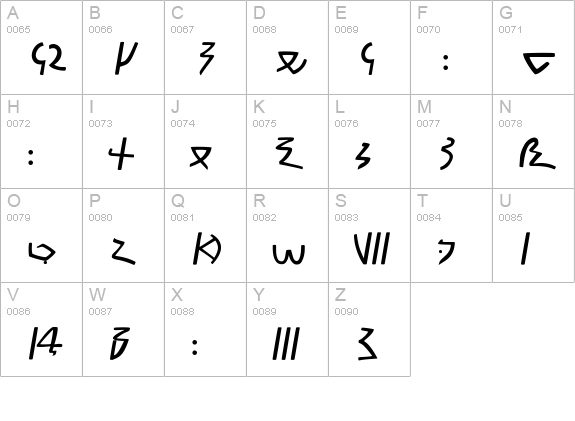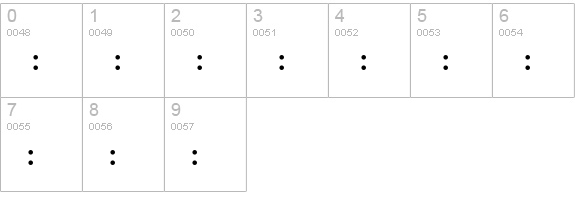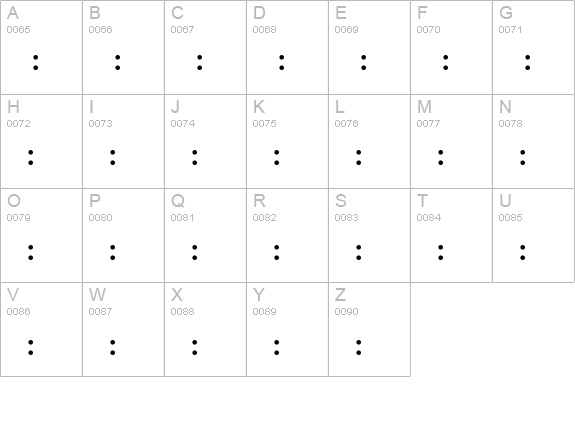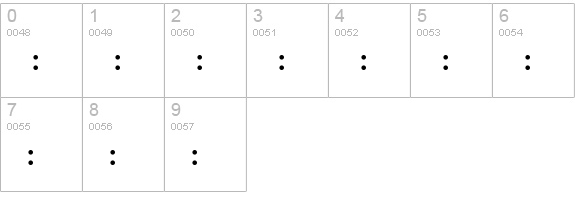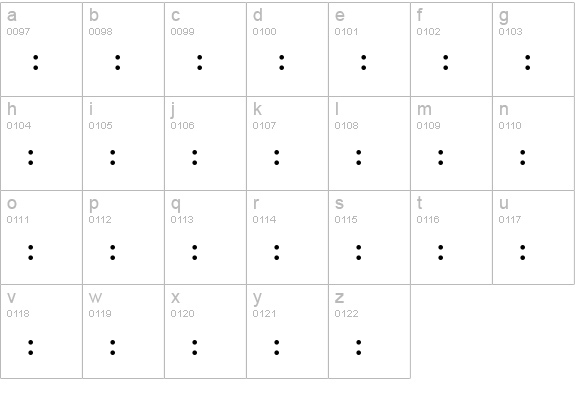
Meroitic - Demotic Font Details
The Meroitic-Demotic font is a unique and beautiful typeface that combines the ancient Meroitic and Demotic scripts in a harmonious and visually striking way. This font captures the essence of these historical scripts while also offering a modern and elegant design that is perfect for a wide range of projects. The intricate details and flowing lines of the characters make this font a standout choice for anyone looking to add a touch of history and sophistication to their designs. Best of all, this Meroitic-Demotic font is available for free download at FontsMarket.com. With just a few clicks, you can add this stunning font to your collection and start using it in your creative projects right away. Whether you're designing a website, creating a poster, or working on a branding project, the Meroitic-Demotic font is sure to make a statement and leave a lasting impression. Download it now and unleash your creativity with this remarkable typeface.